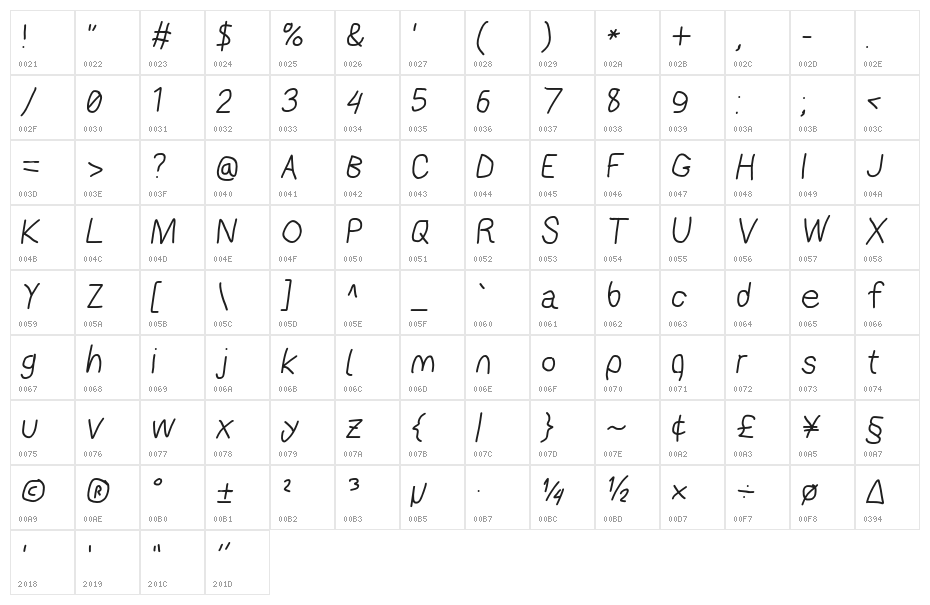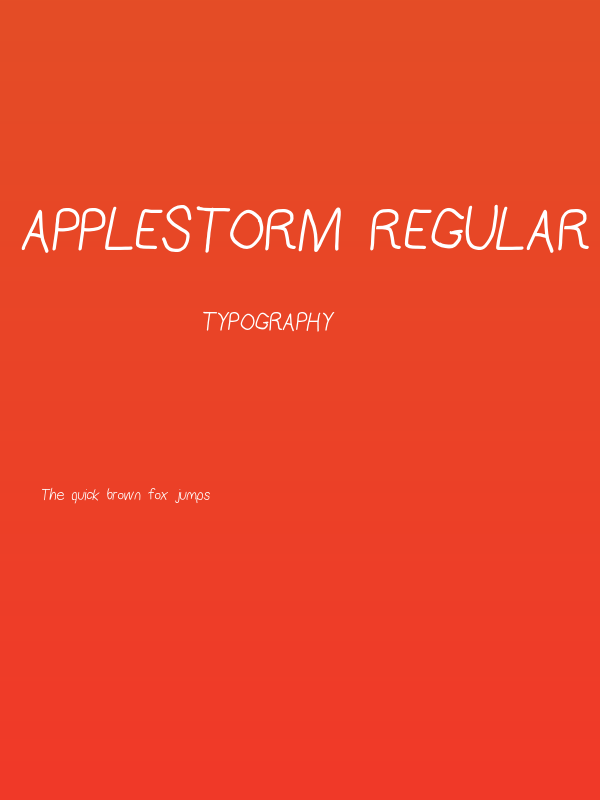
AppleStorm Regular Italic Font
AppleStorm Regular Italic Description
This font exhibits a playful and casual handwritten style, characterized by its smooth, flowing lines and slightly slanted orientation. The letters are uniformly spaced with a consistent stroke width, giving it a cohesive appearance. The uppercase letters are bold and prominent, while the lowercase letters maintain a friendly and approachable feel. The numerals are clear and easy to read, complementing the overall style. Special characters are well-integrated, maintaining the font's informal aesthetic. This font is suitable for projects that require a personal touch, such as invitations, greeting cards, or informal branding.
| Use Case | Headlines, Informal text, Personal projects |
| Proposed Projects | Ideal for invitations, greeting cards, personal branding, and casual designs. |